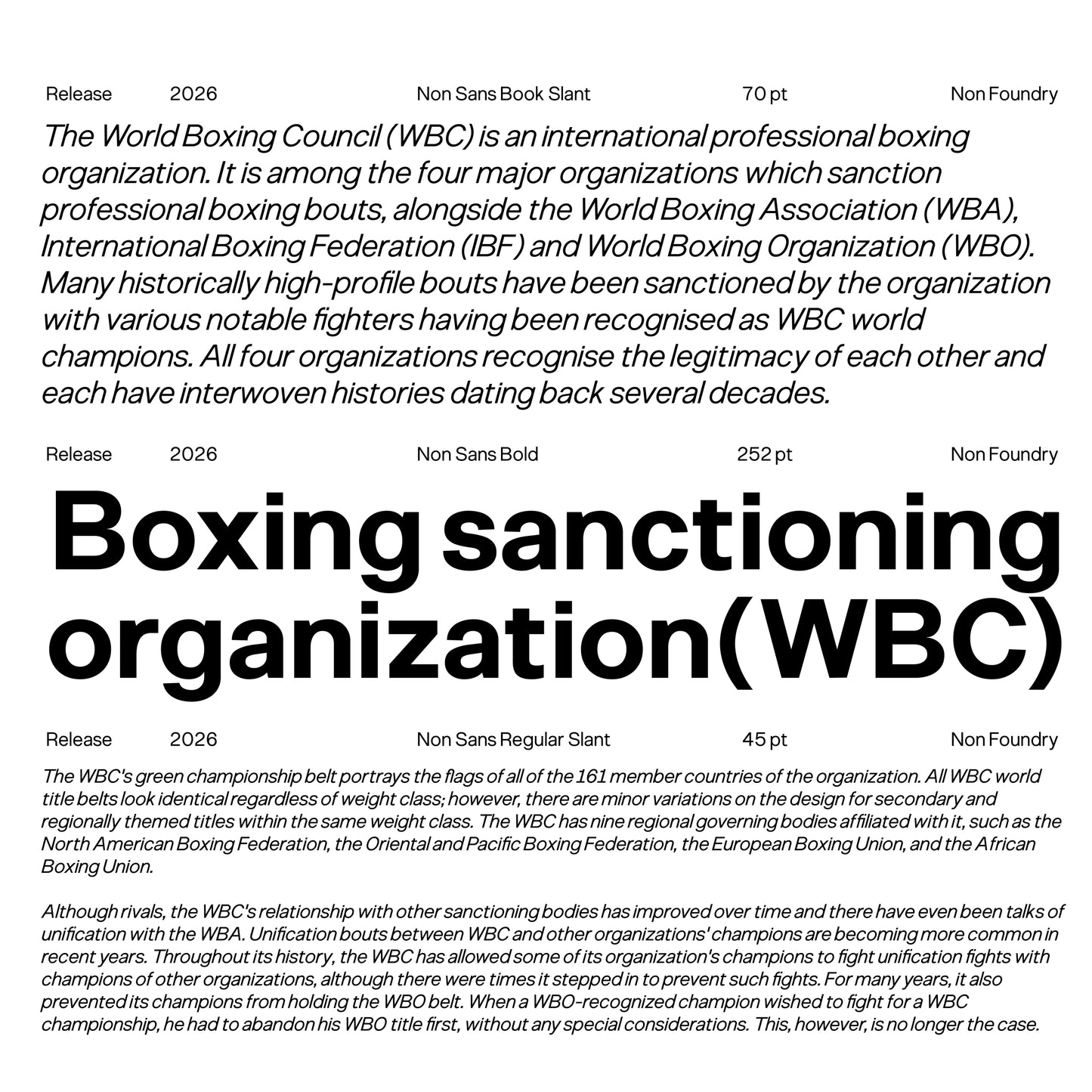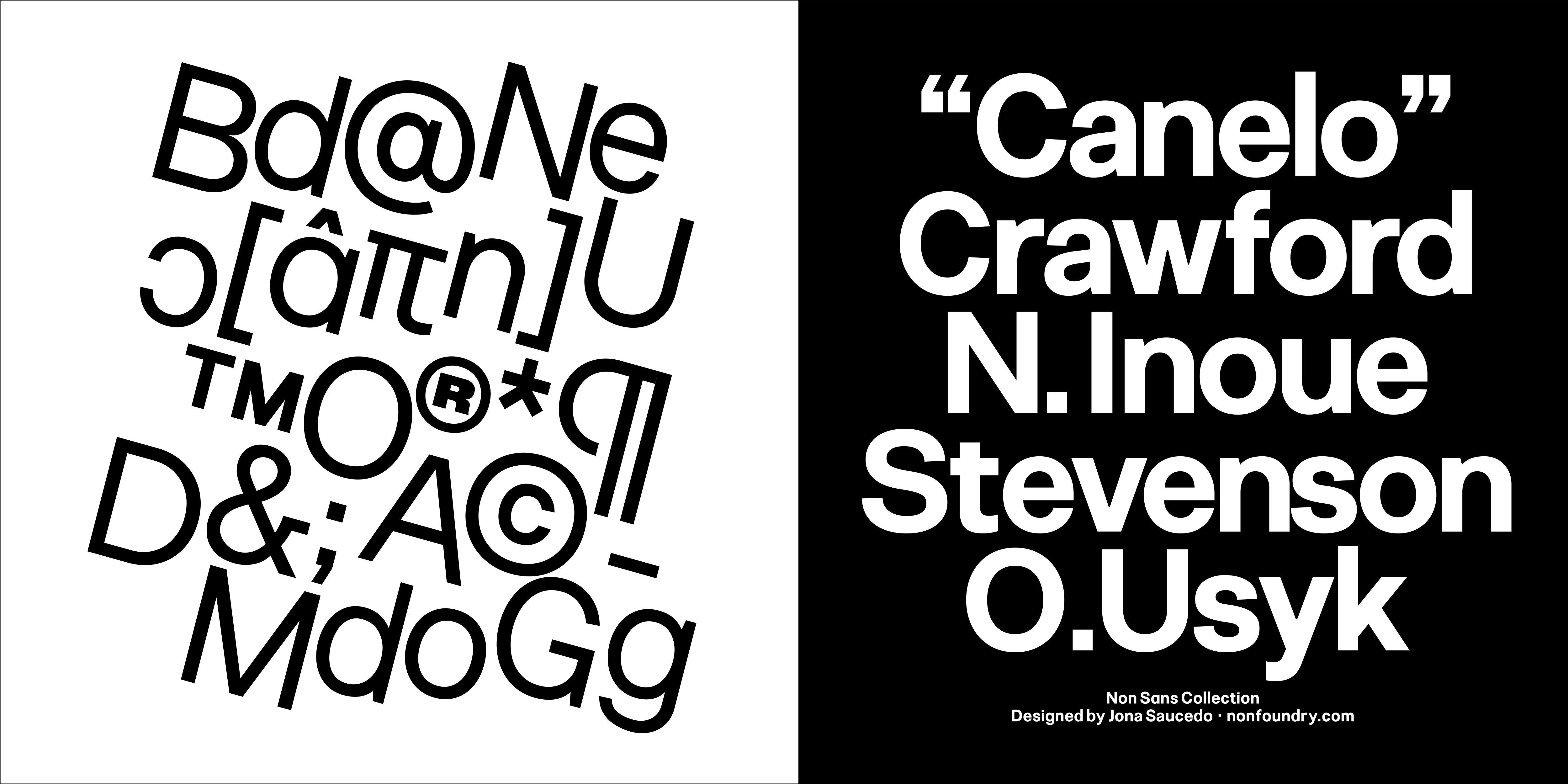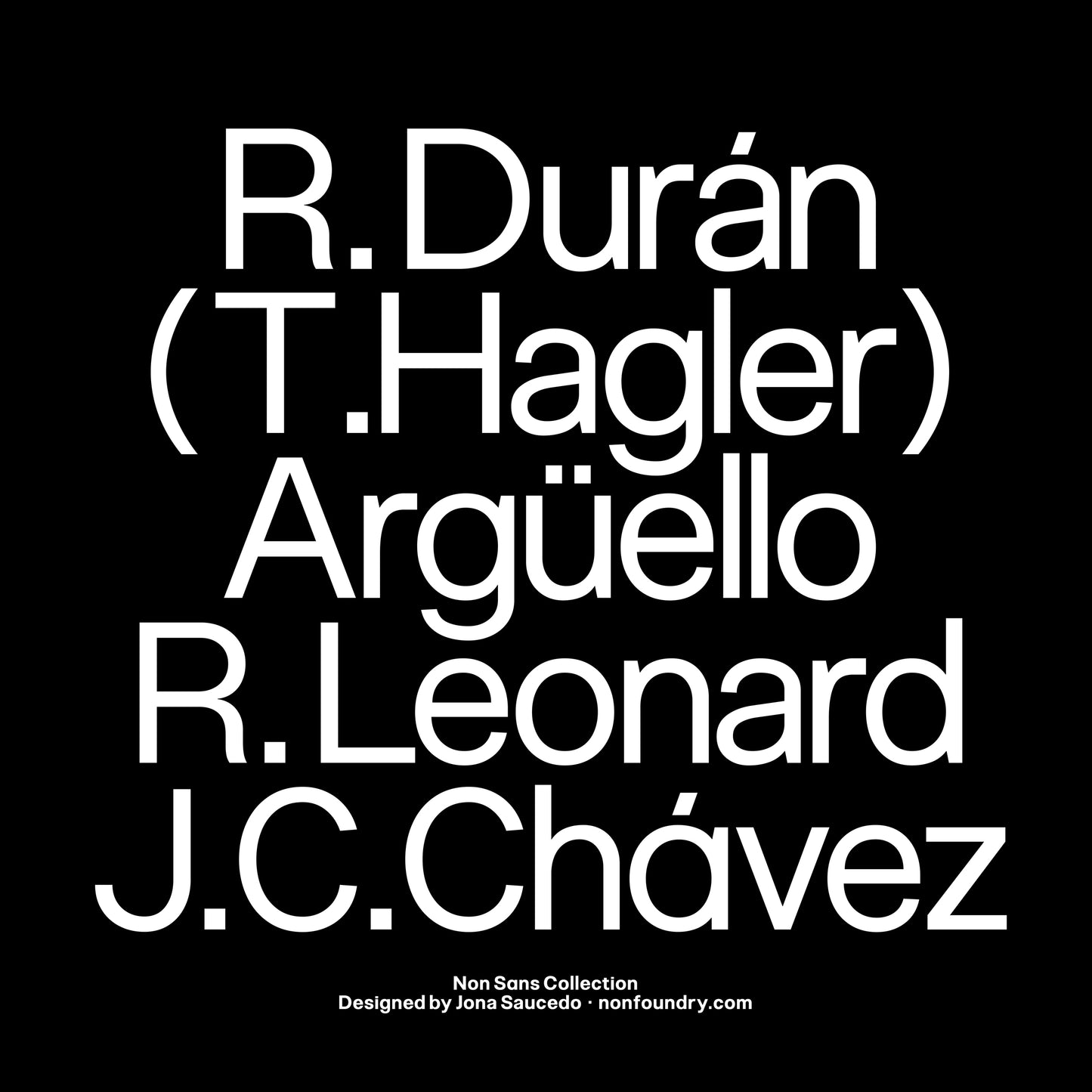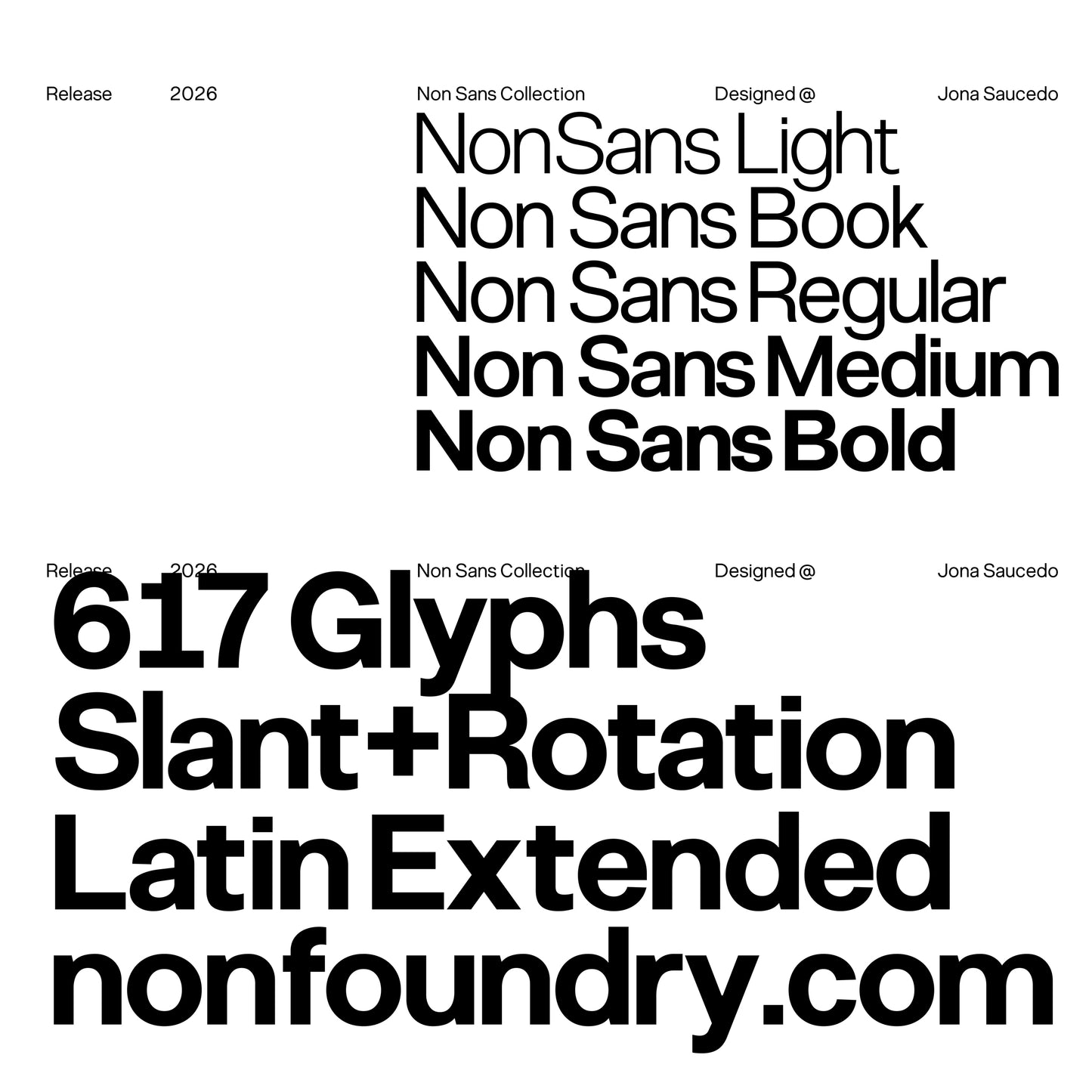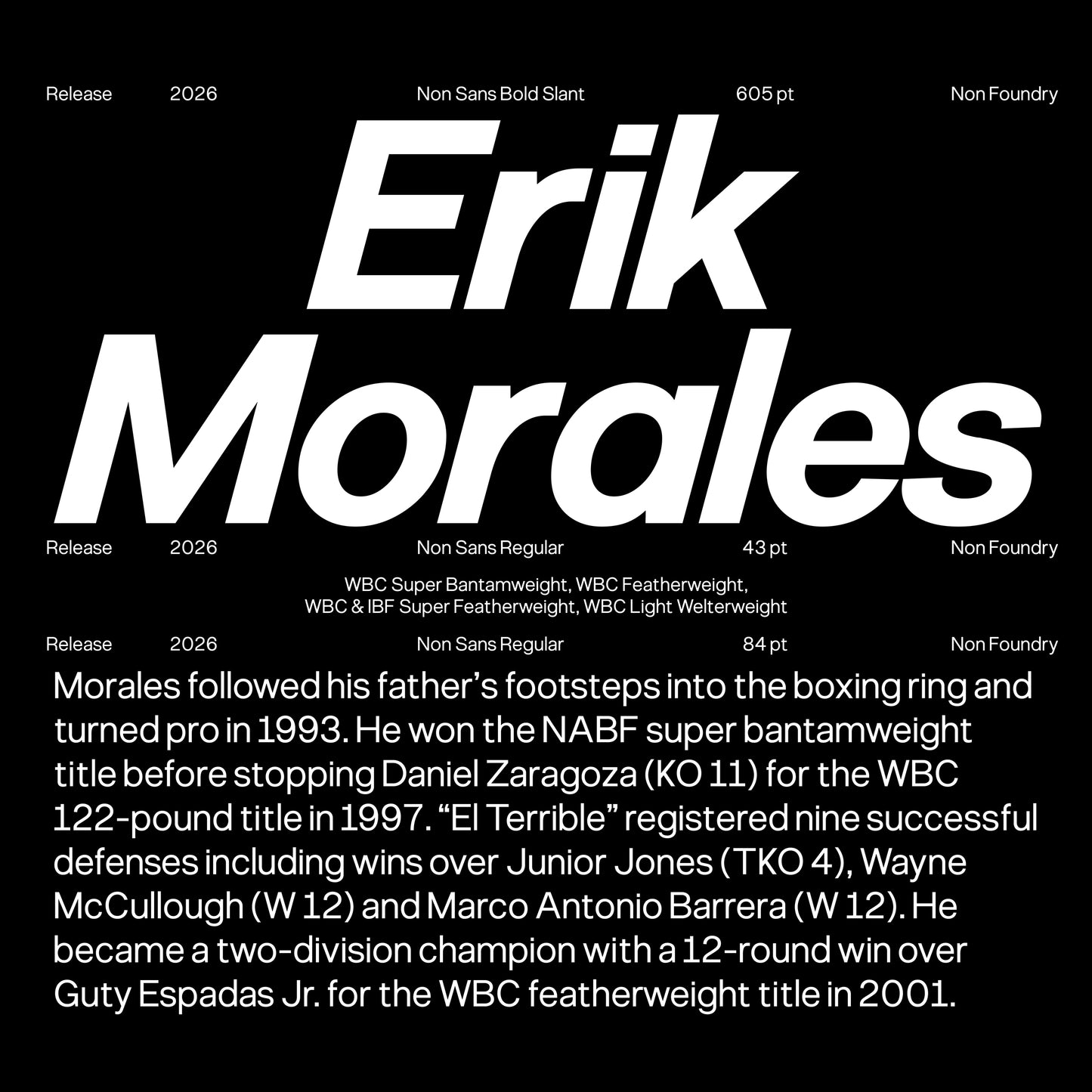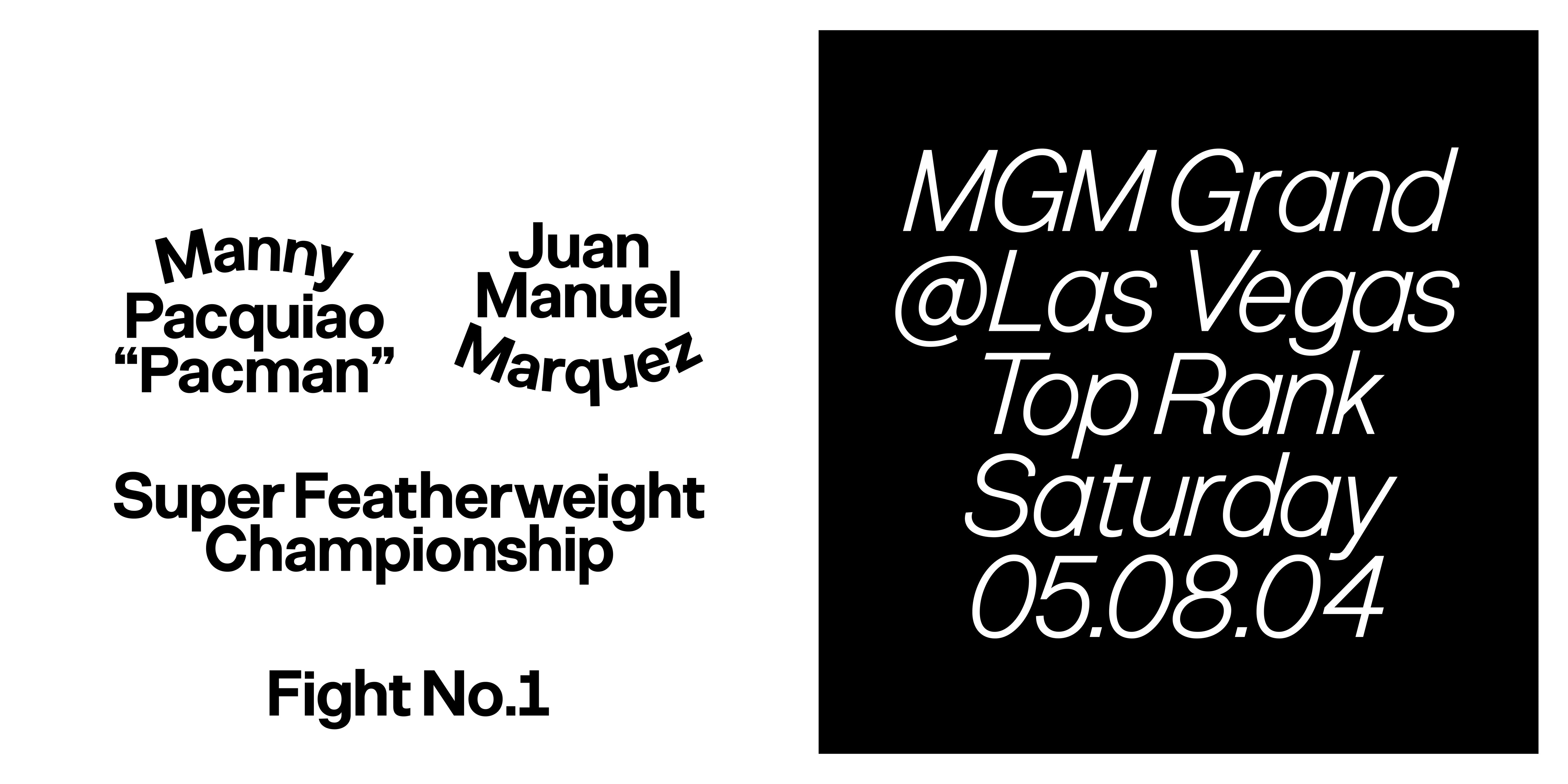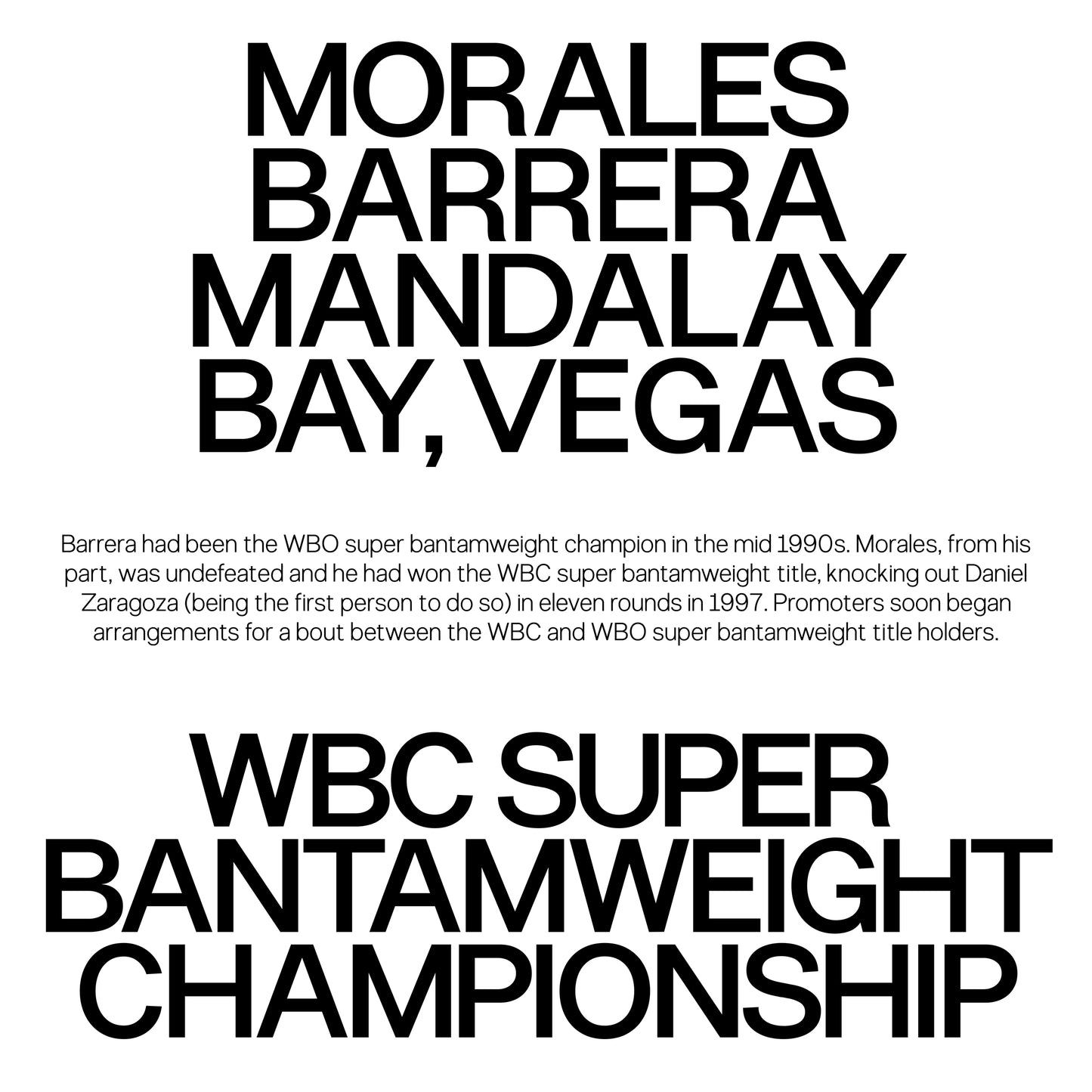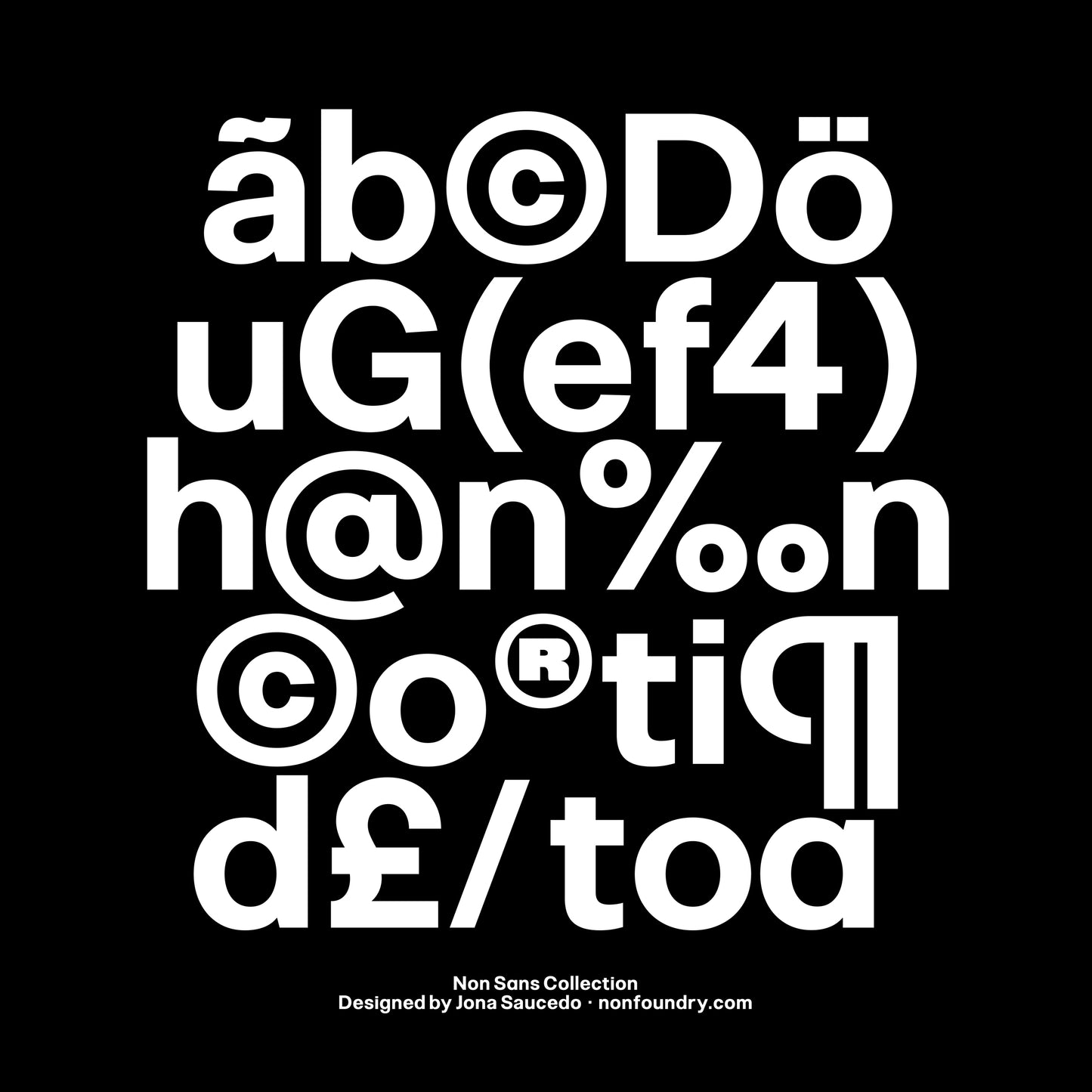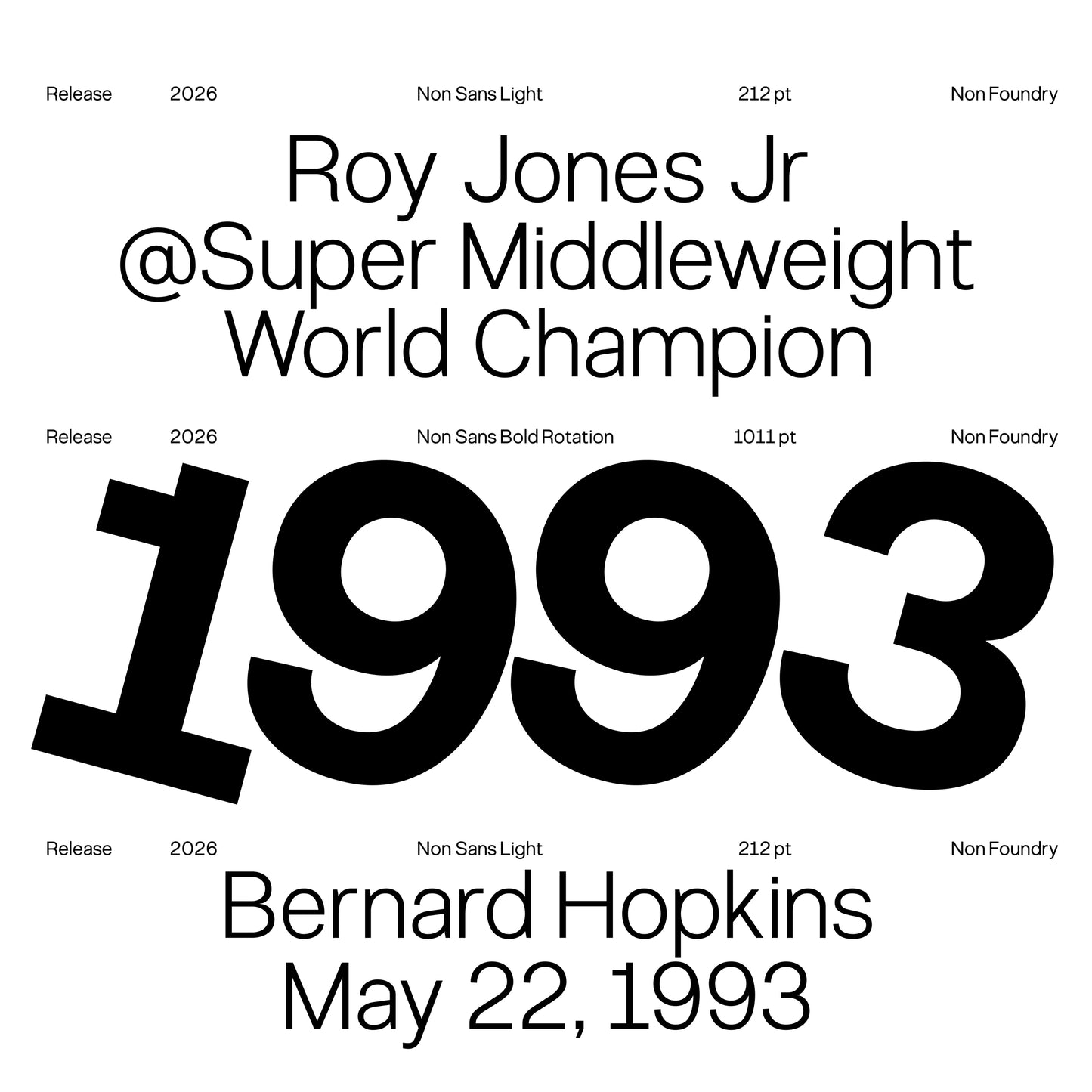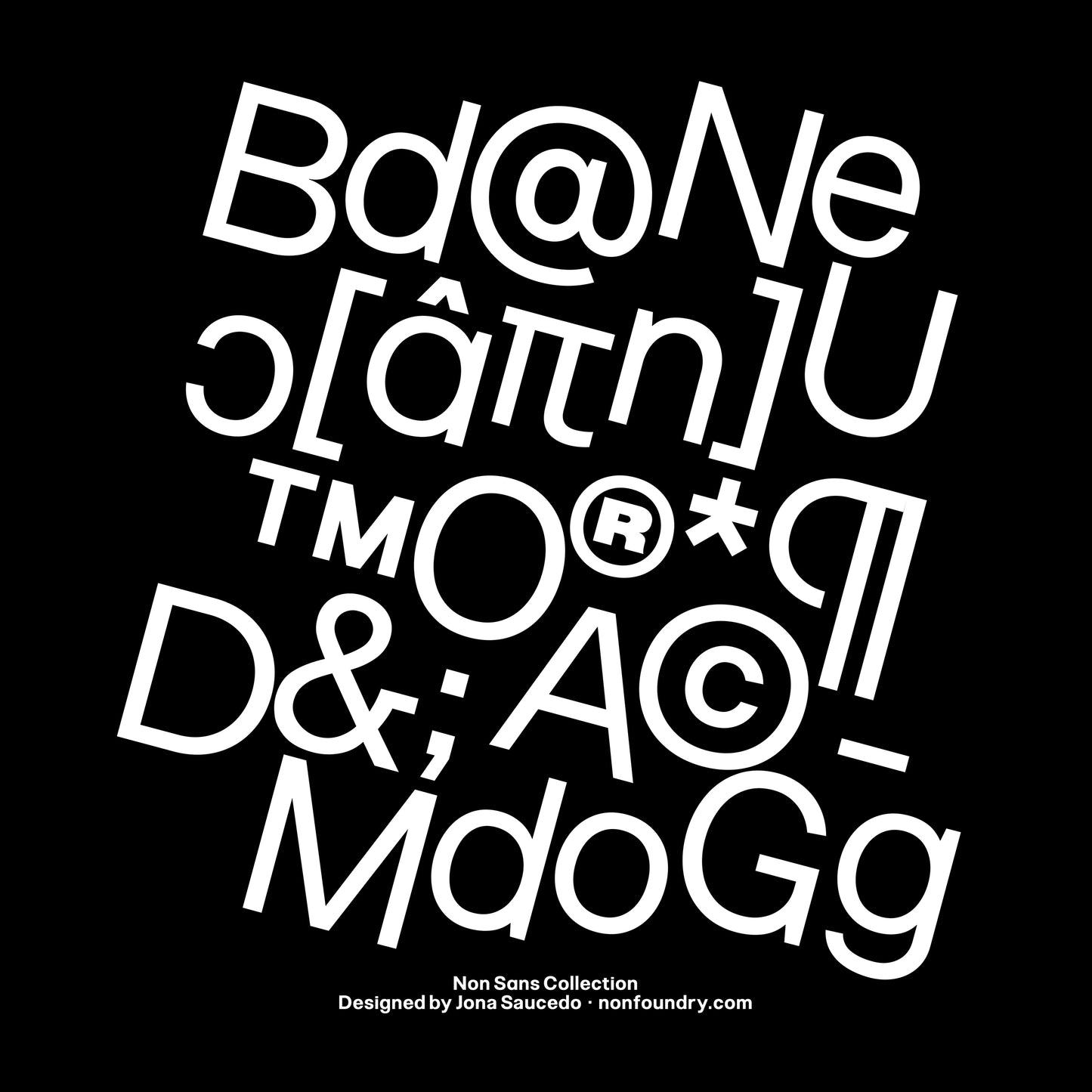
Non Sans
Non Sans is a grotesque style sans serif typeface defined by a dense, robust, and reliable visual construction. Its design creates a solid reading rhythm and a compact, well-balanced text block, making it ideal for typographic systems that demand presence, clarity, and consistency. From its earliest sketches, the influence of Swiss type design from the 1960s is evident, particularly in the functional treatment of forms and the modular structure of its characters.
The family has been carefully refined to deliver strong typographic performance across a wide range of environments and formats. Non Sans features a unified system of x-heights, width proportions, and weight consistency, resulting in a precise and coherent typeface suitable for both editorial projects and digital or interface applications.
As part of the collection, Non Sans Slant preserves the strength of the base design while introducing dynamism and contrast, allowing for emphasis and hierarchy without breaking the system’s identity. In addition, the Rotate variant expands the expressive possibilities of the family. Designed for display use such as logos, posters, and graphic assets, this version retains the core structure and details of Non Sans while adding a distinctive and experimental character.
Both internal and external glyph spacing have been carefully optimized, with particular attention to detail, ensuring excellent legibility even at small sizes and on low-resolution screens. Through this balance of functionality, character, and versatility, Non Sans positions itself as a contemporary, solid, and highly adaptable typographic tool for a wide range of design contexts.
— TOTAL GLYPHS: 617
— TOTAL STYLES : 20
— DIACRITICS & LIGATURES
— SYMBOLS & ARROWS